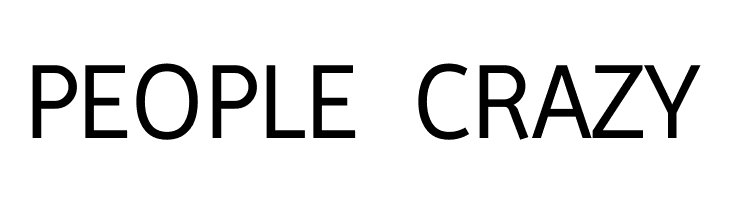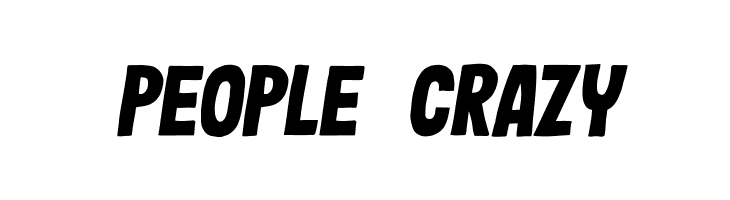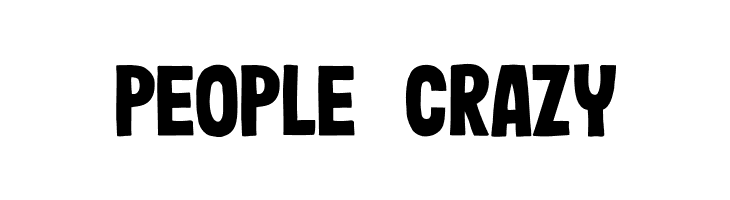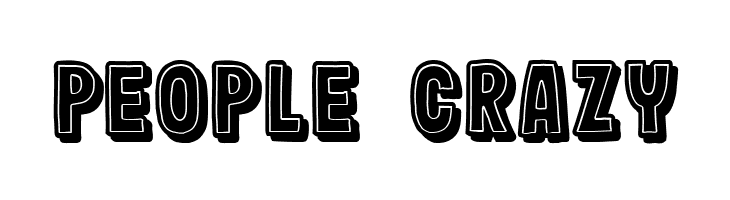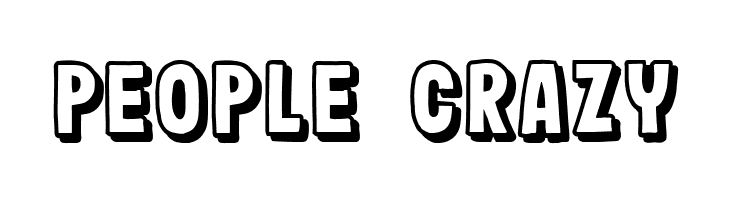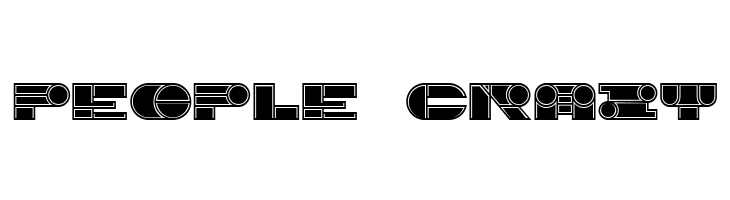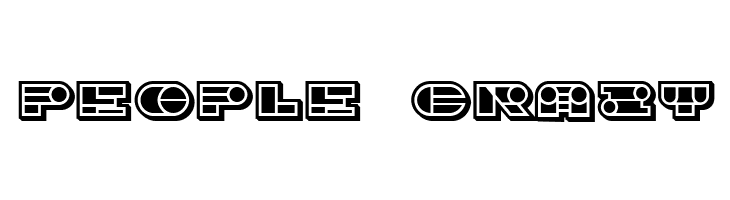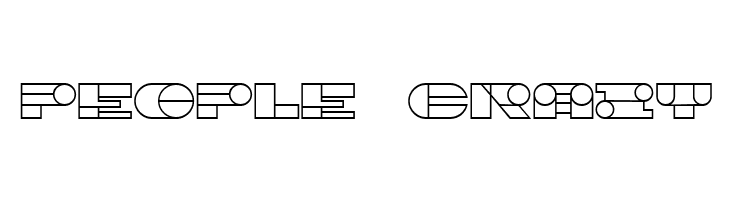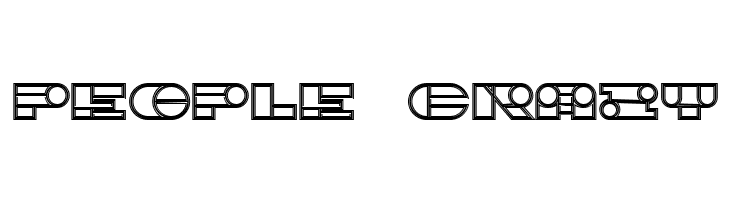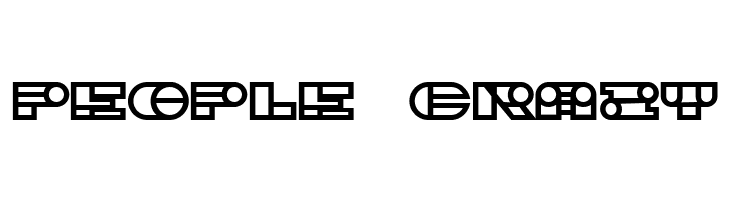
An abstract, geometric font with intricate patterns and a modern style.
A bold, geometric font with hollow interiors and a modern, industrial style.
A bold, geometric font with hollow interiors and a modern, futuristic style.
A geometric, hollow font with a futuristic and modern design.
A bold, decorative font with intricate geometric patterns and a retro-futuristic style.
A bold, ornamental font with geometric patterns and intricate details.
A decorative and ornamental font with intricate geometric patterns and bold outlines.
A bold, geometric font with outlined and filled segments, offering a modern and striking appearance.
A geometric, outlined font with intricate line work and decorative elements.
A bold, geometric font with a modern, decorative style and unique cutouts.
A playful, bold font with rounded, hand-drawn characters.
A playful, handwritten-style font with consistent stroke thickness and a casual feel.
A bold, geometric font with strong, angular lines and a modern aesthetic.
A bold, italic font with a dynamic and modern style.
A bold, condensed font with rounded edges and tight spacing, ideal for impactful headlines.
A bold, shadowed font with filled characters for a striking, three-dimensional look.
A bold, shadowed font with a playful, three-dimensional look.
A clean, modern sans-serif font with excellent readability and balance.
A modern, clean sans-serif font with excellent readability.
A playful, handwritten font with tall, narrow letters and a quirky style.
A modern, geometric font with sharp angles and a futuristic feel.
A bold, geometric font with a three-dimensional outline and a futuristic style.
A bold, futuristic font with geometric shapes and sharp edges.
A bold, geometric font with a futuristic and edgy design.
A bold, futuristic font with angular, geometric shapes and a modern aesthetic.
A modern, geometric font with rounded edges and balanced proportions.
A modern, monospaced font with excellent readability and uniform spacing.
A clean, modern monospaced typeface ideal for coding and technical documentation.
A bold, monospaced typeface with a clean and modern design.
A bold, italic, monospaced font with medium contrast and modern style.
A modern, monospaced italic font with medium contrast and clean lines.